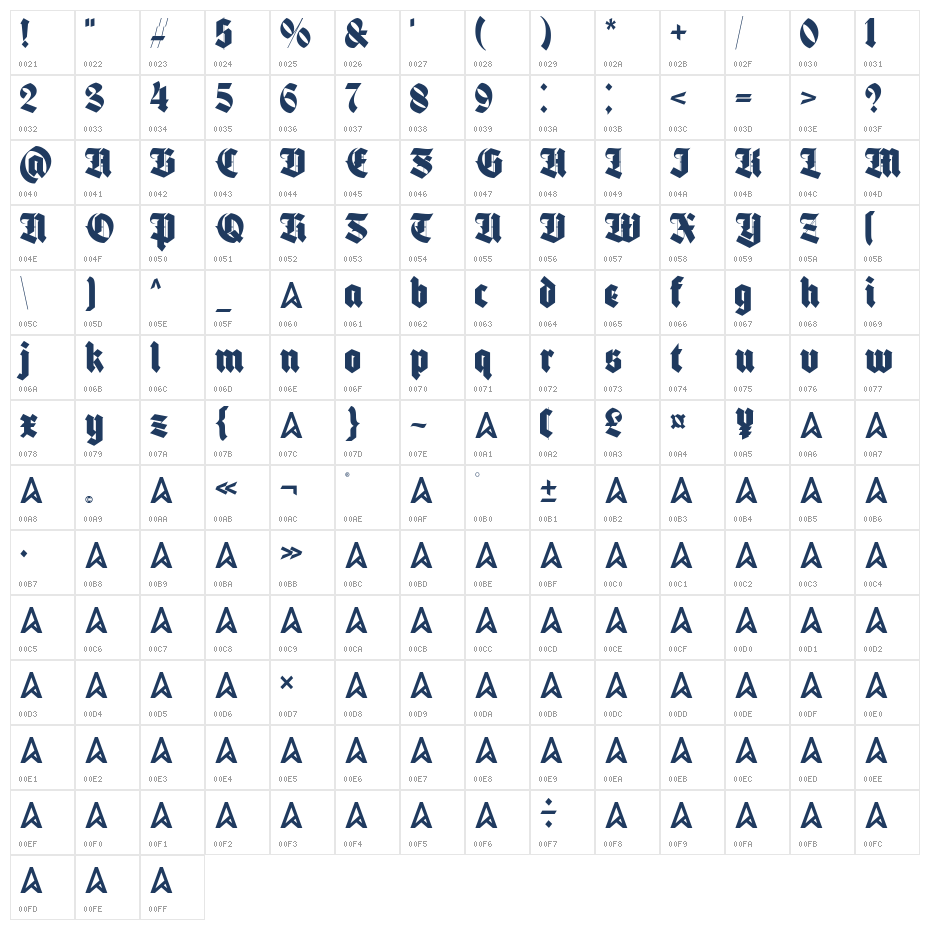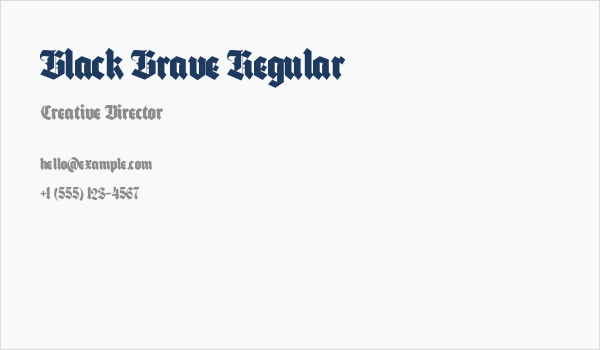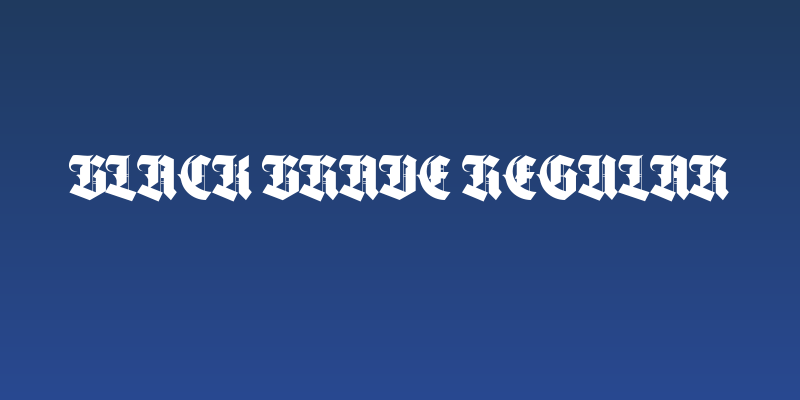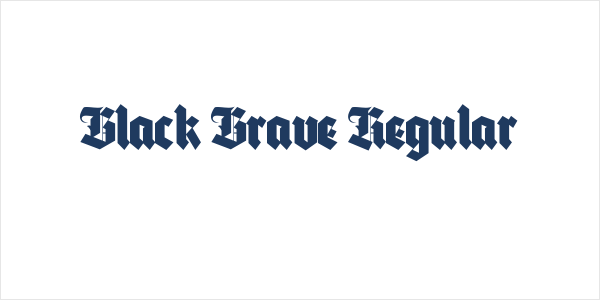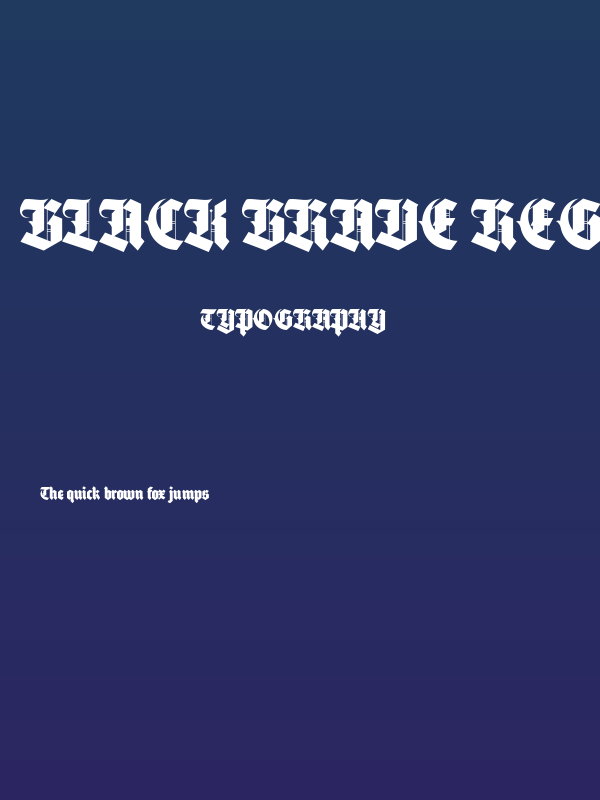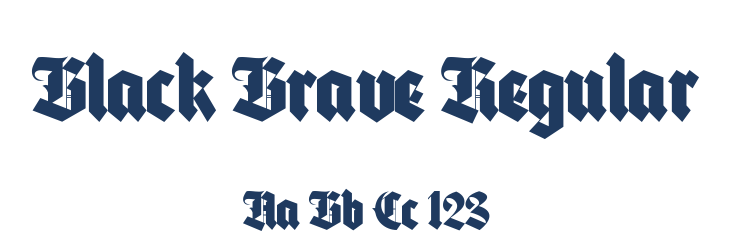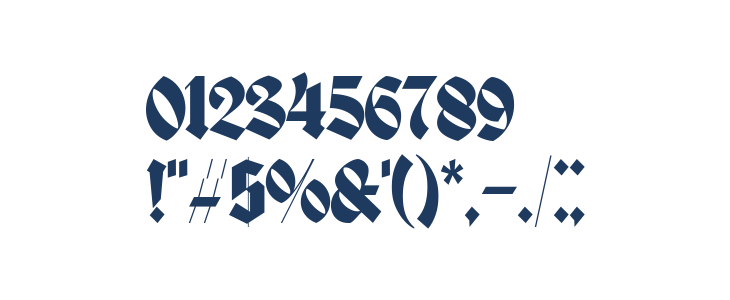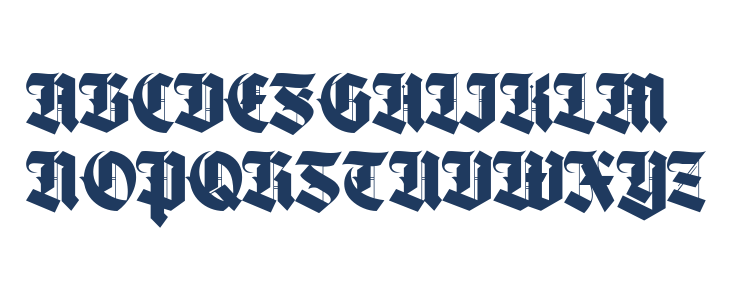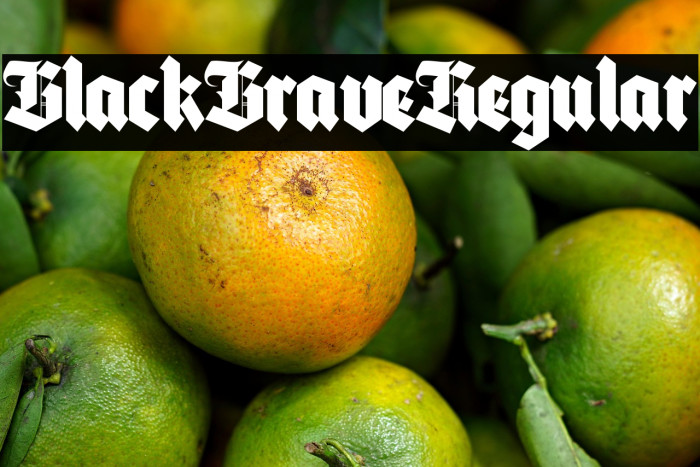
Black Brave Regular Font
Black Brave Regular Description
A bold, Gothic-style blackletter font with sharp, angular lines and a traditional medieval appearance.
| Overall Style | Medieval, Vintage, Gothic |
| Use Case | Headlines, Logos, Posters, Titles |